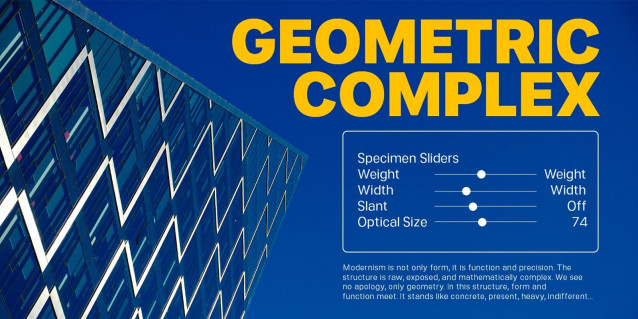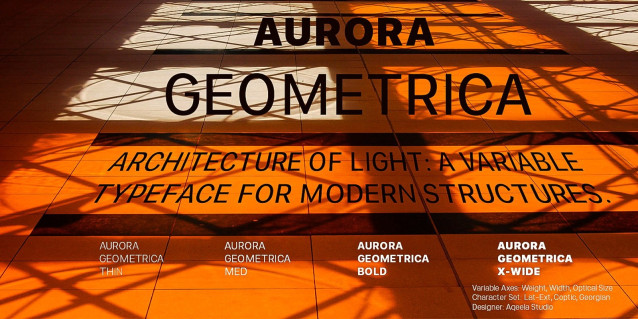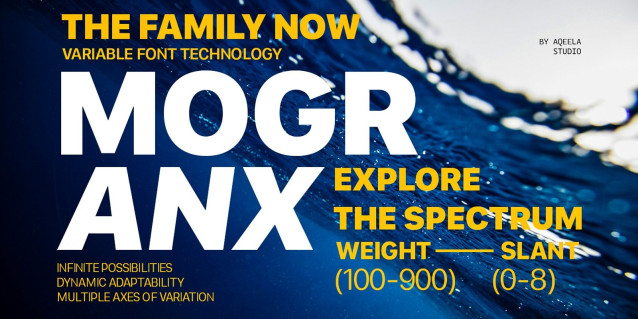
Mogranx Ext Font
Mogranx Ext Font is a high-performance variable font built for “Infinite Possibilities.” It seamlessly blends technical precision with a modern aesthetic, making it ideal for everything from digital UI to high-impact branding. Key Features: Variable Control: Seamlessly adjust Weight and Slant for the perfect fit. Massive Library: Includes 155 static styles for full compatibility with all design software. Range: Transitions from ultra-condensed thin styles to commanding black weights. Versatile: Optimized for motion graphics, editorial layouts, and advertising. Technical Details: Styles: 155 Static Styles and Variable version included. Weight Axis: Range from 100 to 900. Slant Axis: Range from 0 to 8. Design: Aqeela Studio.